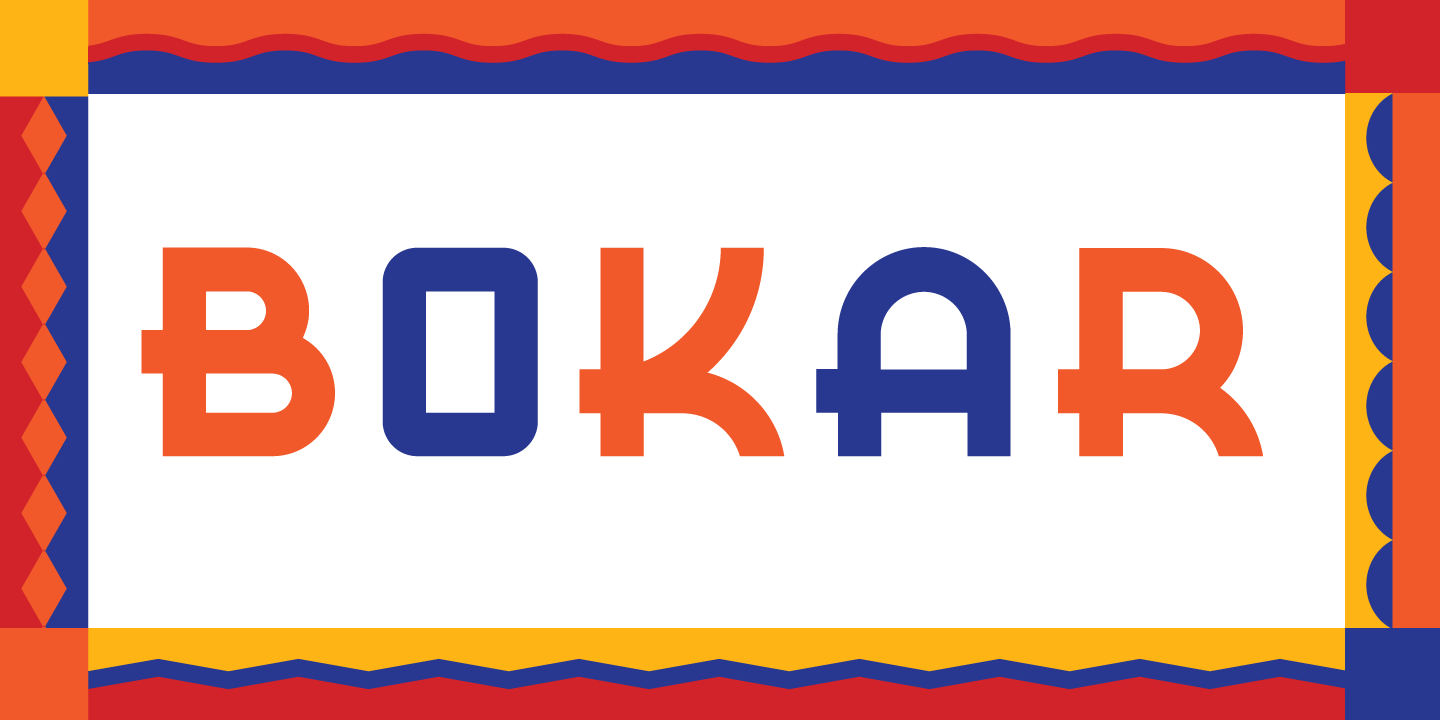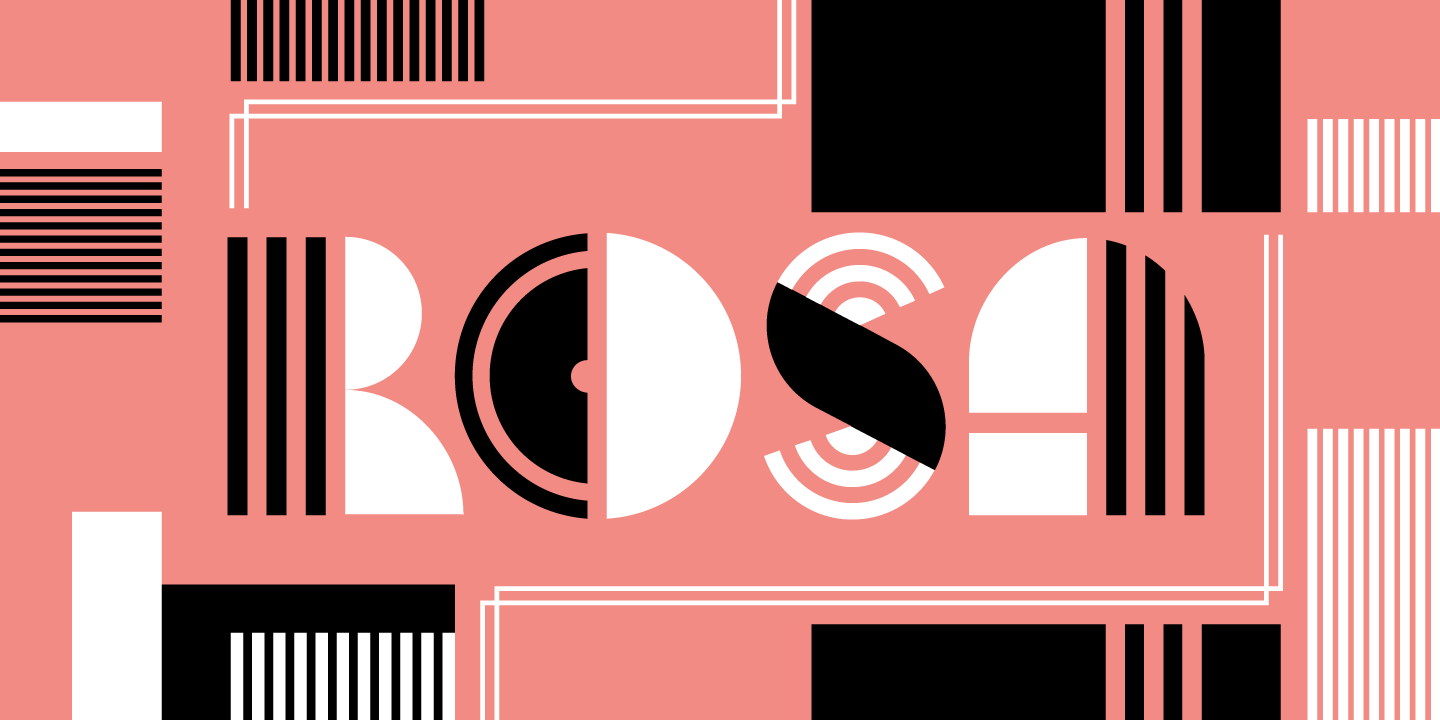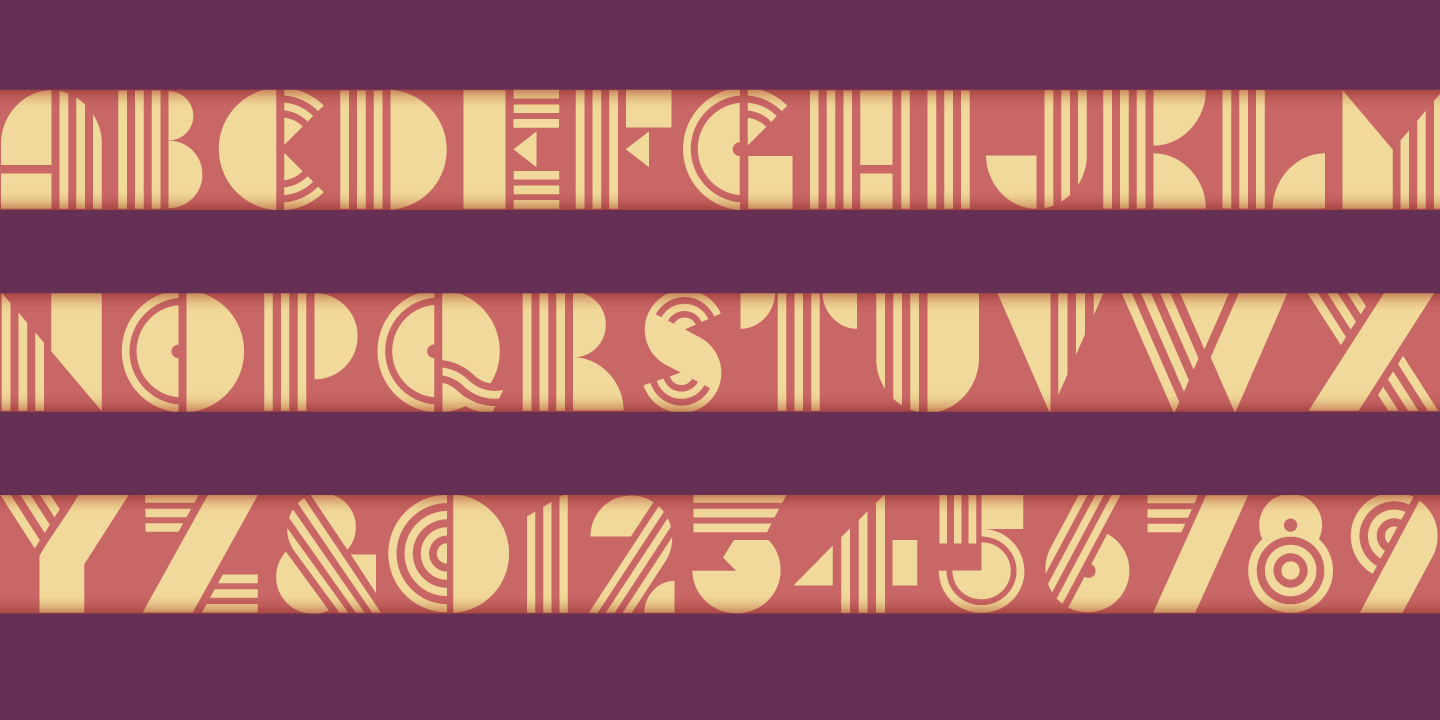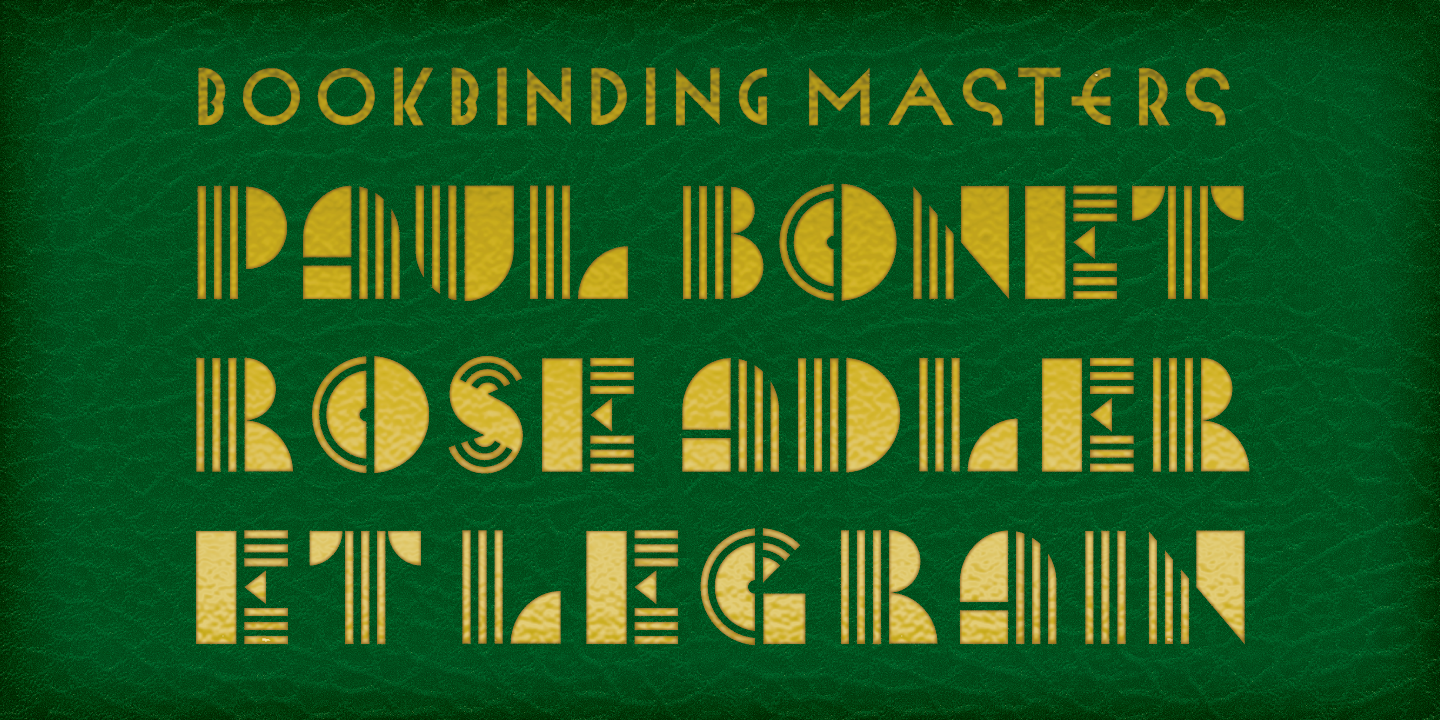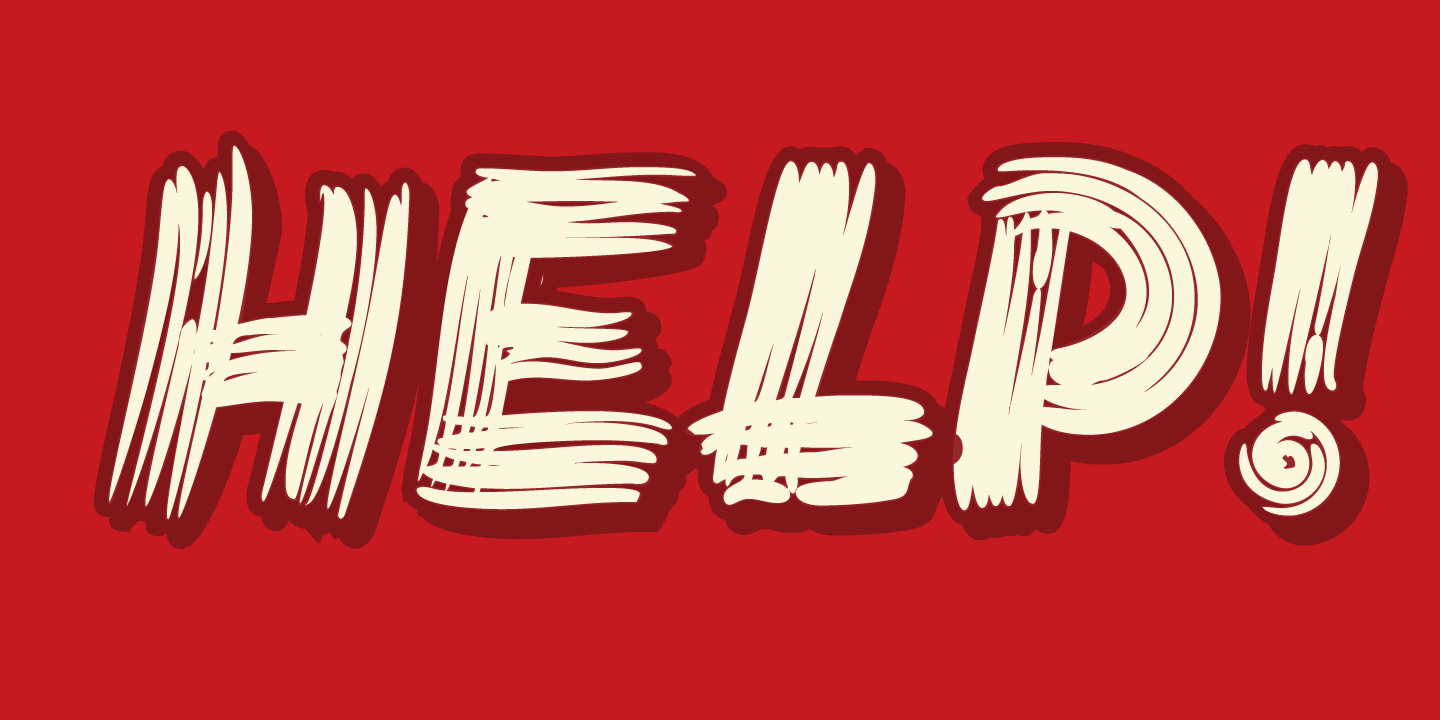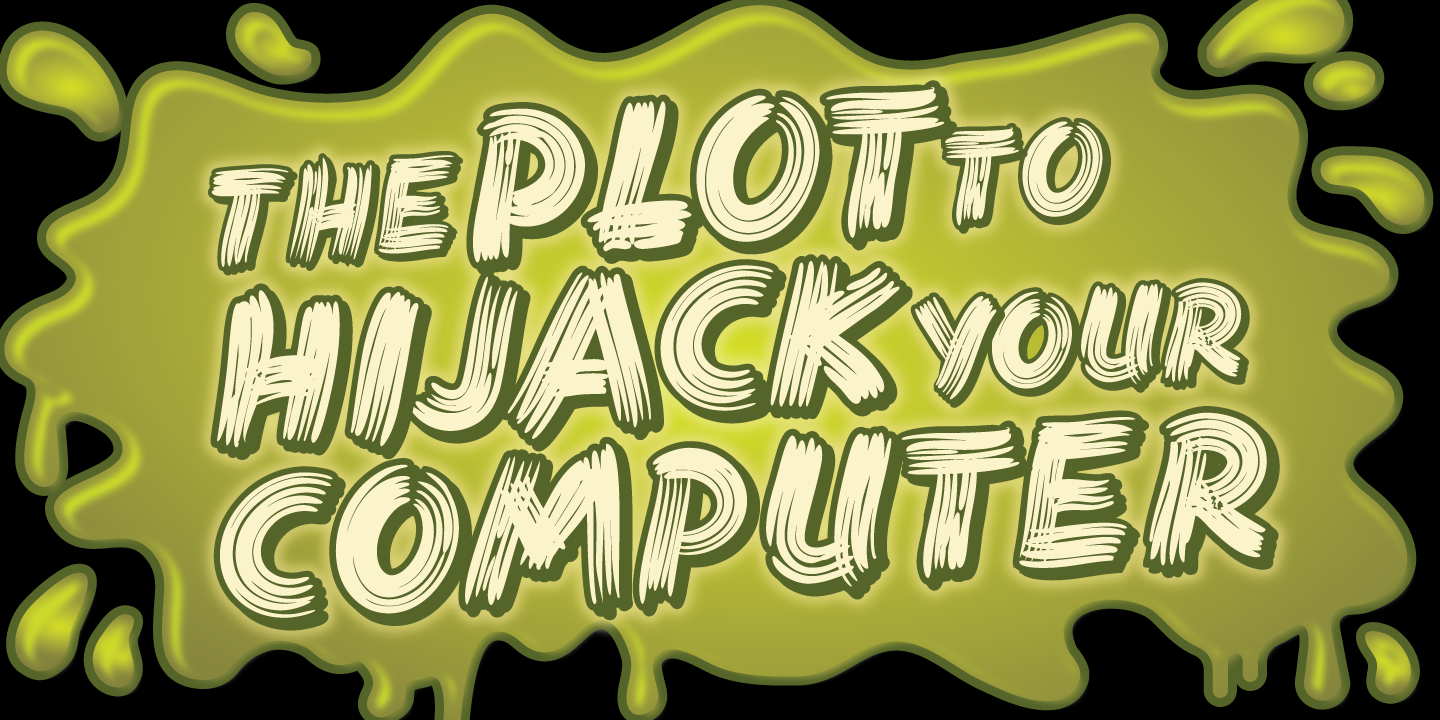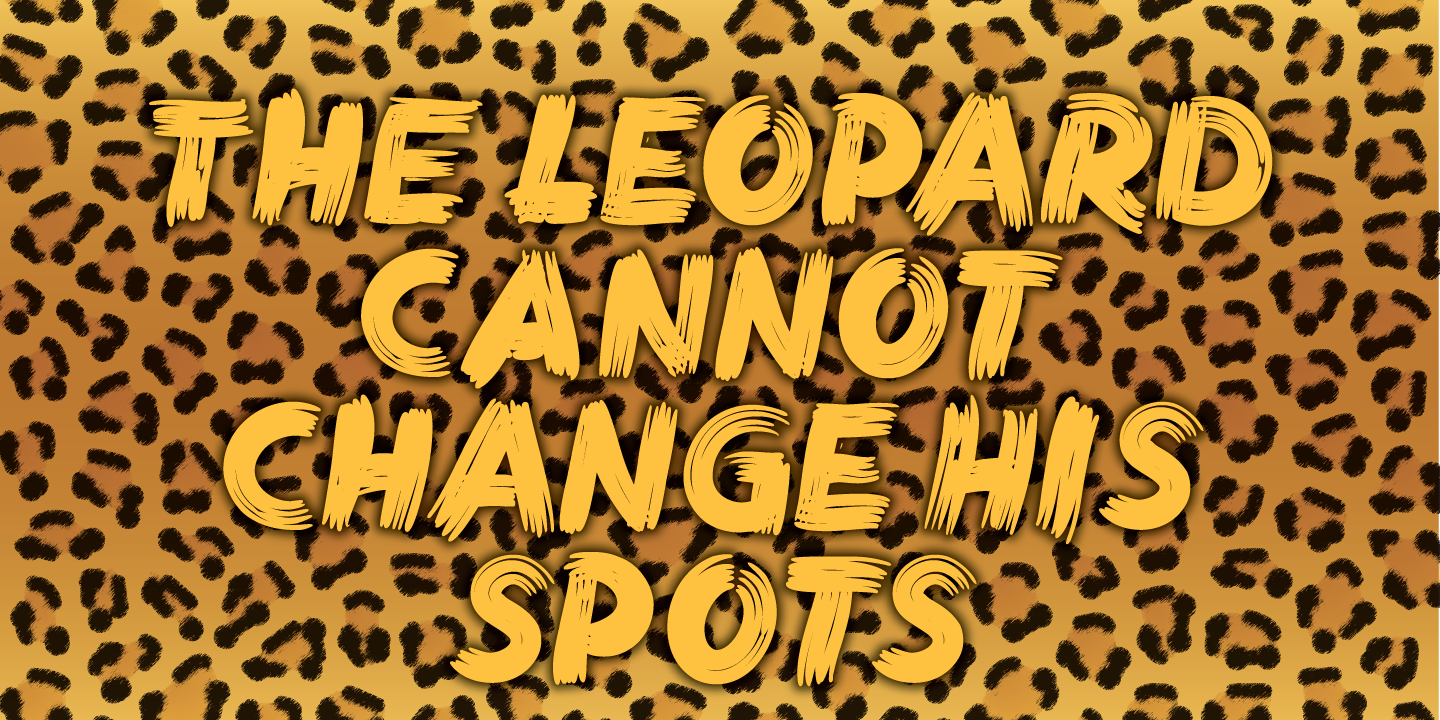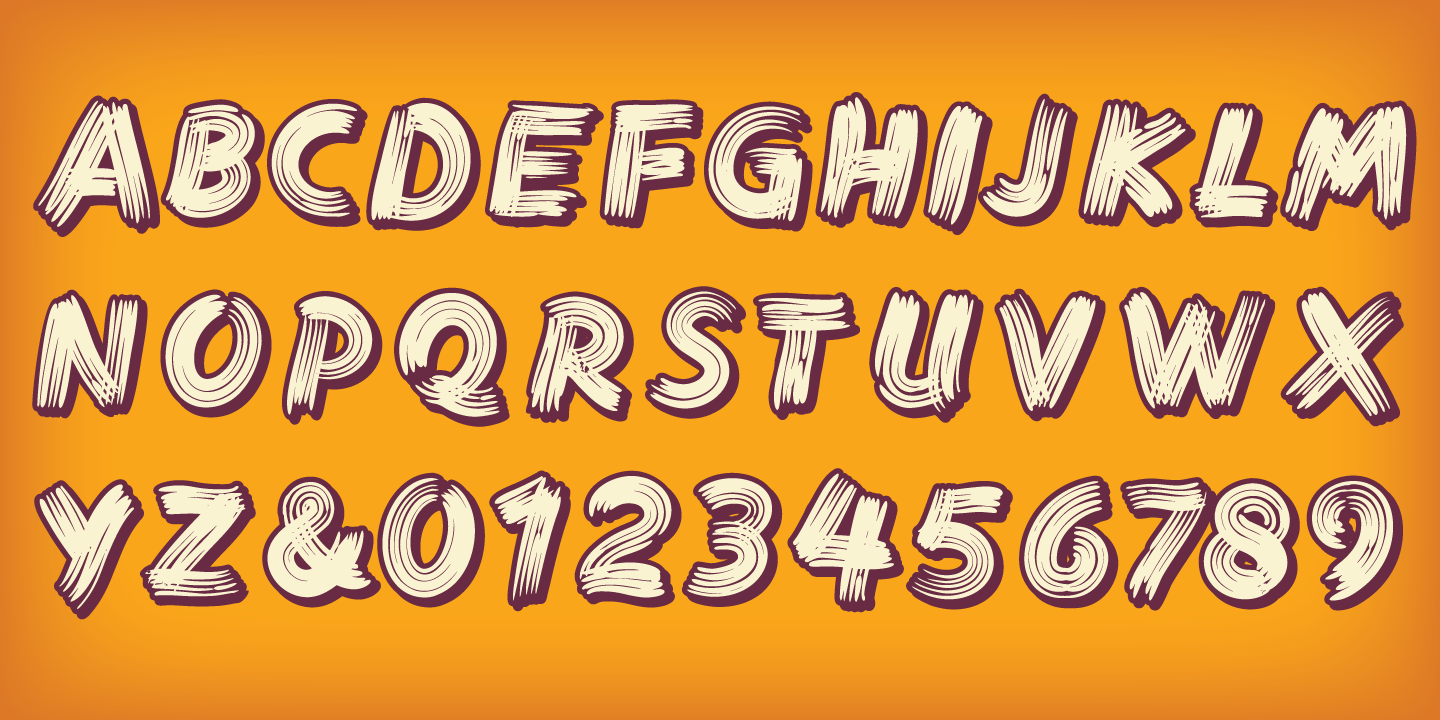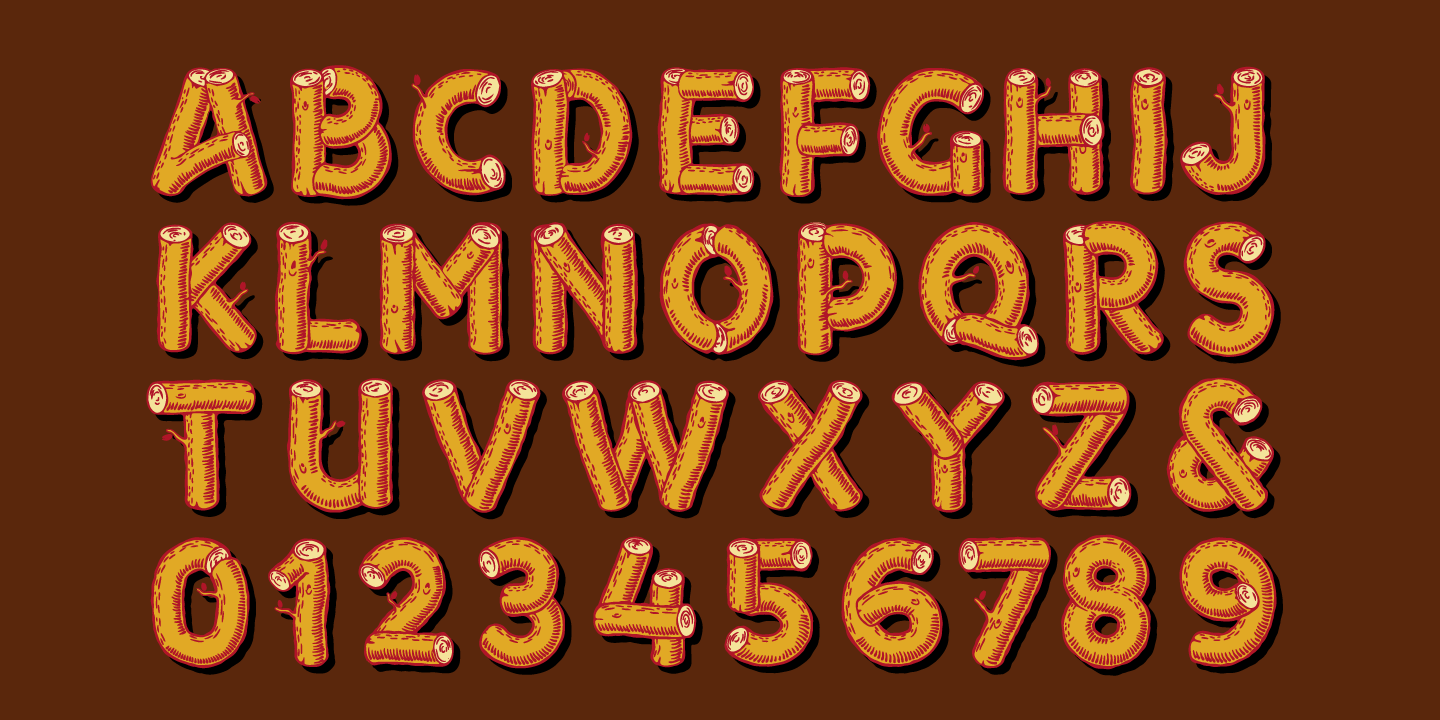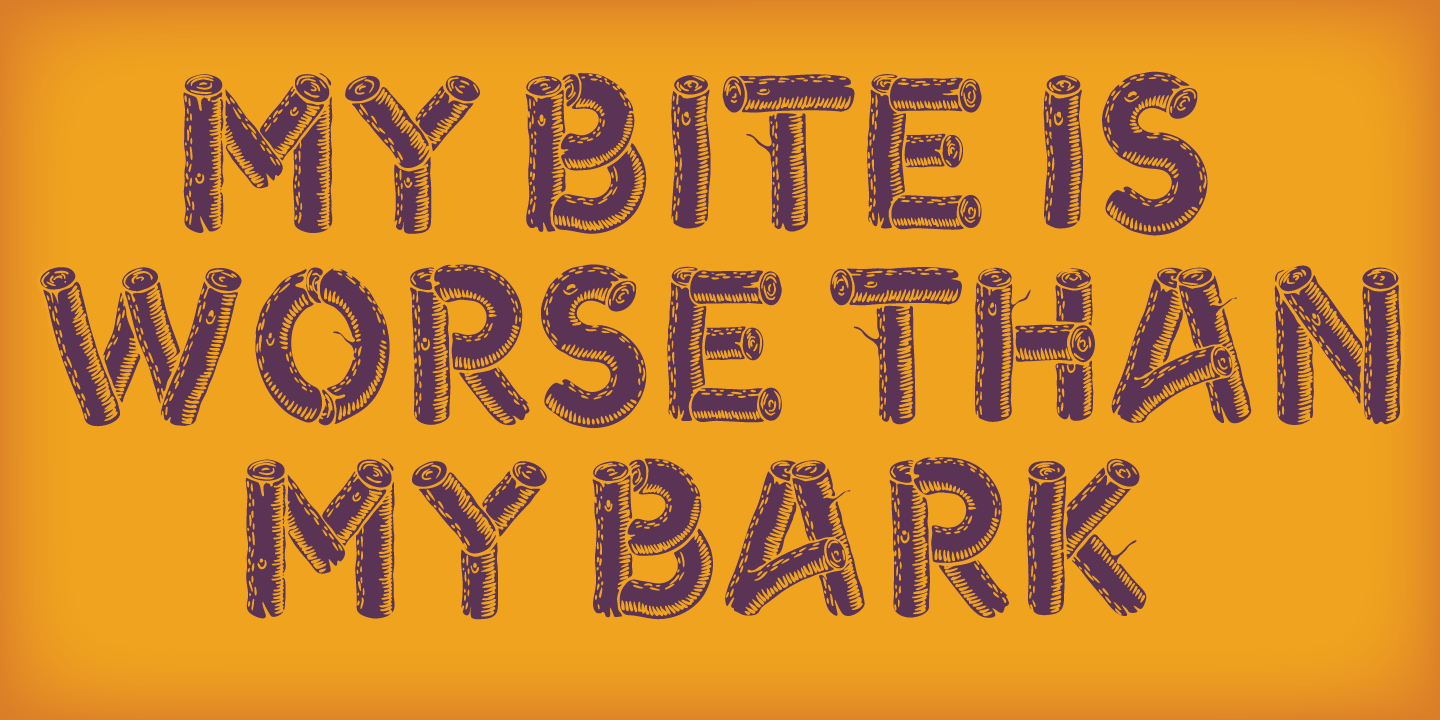
Daniel Pelavin of United States of AmericaBorn: Detroit, Michigan, 1948
Daniel Pelavin learned the crafts of typography and design under the tutelage of mentors in Detroit’s professional art studios and typehouses. From his earliest work, produced with draftsman’s tools, to a present day virtuosity in digital media, Pelavin has used a restrained and simplified vocabulary of geometric forms, rich, flat colors and letterforms inspired by a wide range of 20th century cultural ephemera to create cogent and compelling messages for publishing, advertising and communication design. A fascination with letterforms from an early age has led him to create fonts, influenced by many different historical periods. While some are faithful to traditional forms and others reflect a unique take on idioms of the past, all are designed to be tools which provide a designer the freedom and inspiration to explore his own creative vision. He offers his fonts through his personal Pelavin Fonts foundry. Fonts by Daniel PelavinITC Anna, Anna, ITC Anna, Bing, Bokar, Book Country, China Market, HiFi, ITC Kulukundis, Marquee, Monograph, Rilke, Safety, Salty Dog, Setsuko, Tiki, Tribeca Script, Twentieth Century Browse all fonts by Daniel Pelavin Activities Related Links